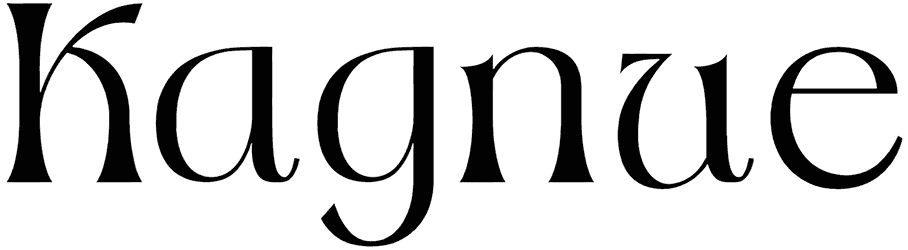
Kagnue Font
Even if your library is filled with elegant fonts, make room for Kagnue because this font can guarantee any project’s success and has looked at classic fonts from a new perspective.
Changing the thickness in this font and the curvature in its design gives you a lot of space to implement creative ideas and is an excellent place to gain experience. So if you want to make a distinction in your website or posters, Kagnue has this potential even without numbers.